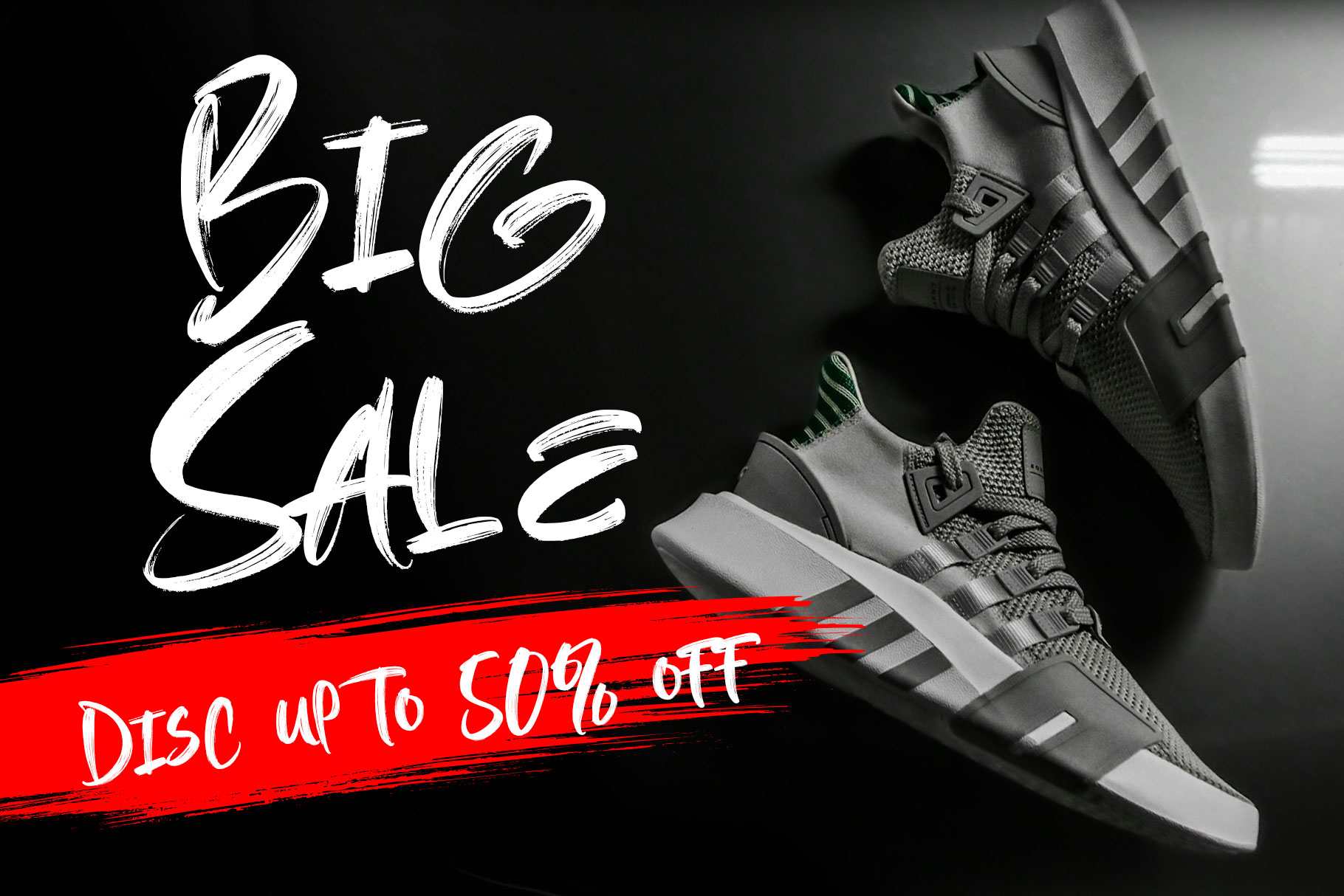
Marolen Urban Brush Font
Marolen a modern, hand-drawn brush font that typically conveys an edgy, bold, and expressive aesthetic. Marolen is a perfectly choice for any creative endeavor, creating, modern, energetic, lifestyle design such as logotype, title, cover, branding, invitations, wedding designs, display and magazine, social media posts, advertisements, printed quotes, product packaging, corporate brand, product designs, labels, photography, watermarks, special events and any other project with modern touch.